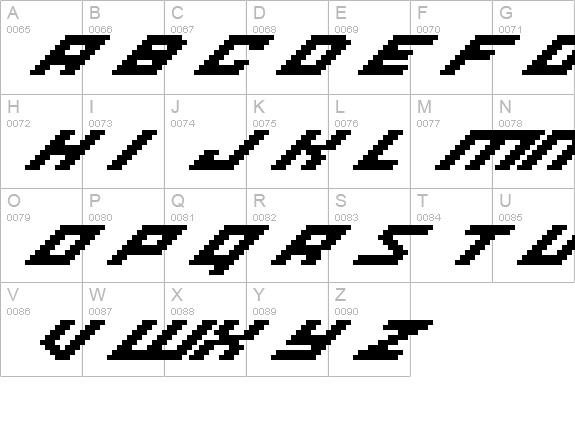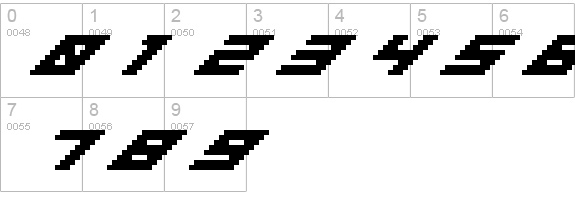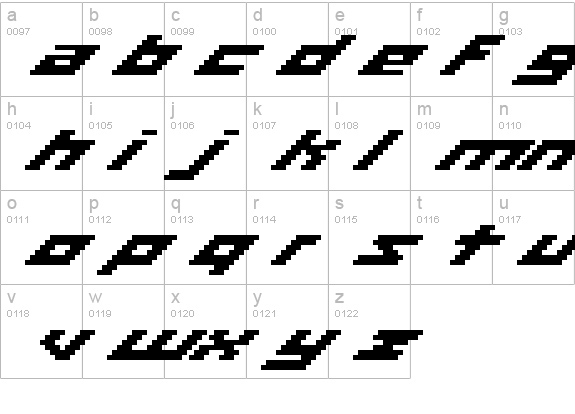
iso 08_66 Font Details
Introducing iso 08_66 font, a stunning typeface that combines elegance and versatility. This font is the perfect choice for any project that requires a touch of sophistication and style. With its clean lines and modern design, iso 08_66 font effortlessly captures attention and delivers a message with clarity and impact. What sets iso 08_66 font apart is not only its exceptional aesthetics but also its accessibility. This font is freely available to download at FontsMarket.com, ensuring that anyone can enjoy the benefits of this typeface without any cost. Whether you are a professional designer, a student, or a hobbyist, iso 08_66 font grants you the freedom to explore your creativity without limitations. Designed with precision and attention to detail, iso 08_66 font is optimized for both print and digital media. Its versatility allows it to shine in various contexts, from branding and advertising materials to website designs and social media graphics. The clarity and legibility of iso 08_66 font make it an excellent choice for body text, headlines, and everything in between. With its extensive character set, iso 08_66 font supports multiple languages and special characters, making it a truly global typeface. Whether you need to communicate in English, French, Spanish, or any other language, iso 08_66 font has got you covered. The sleek and contemporary design of iso 08_66 font is sure to leave a lasting impression. Its timeless appeal combined with its free availability makes it a valuable asset for any creative project. Download iso 08_66 font today at FontsMarket.com and unlock the power of this remarkable typeface.